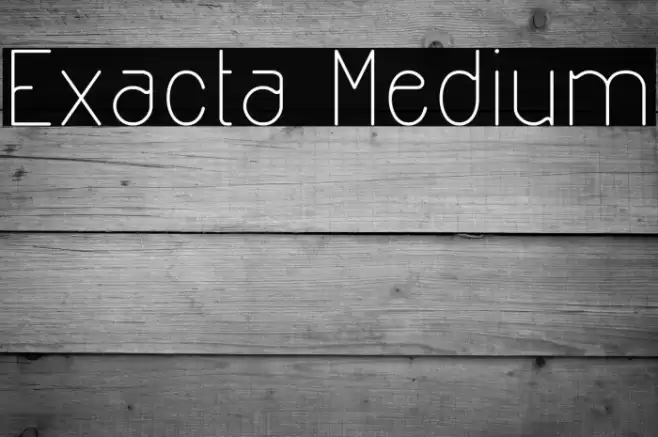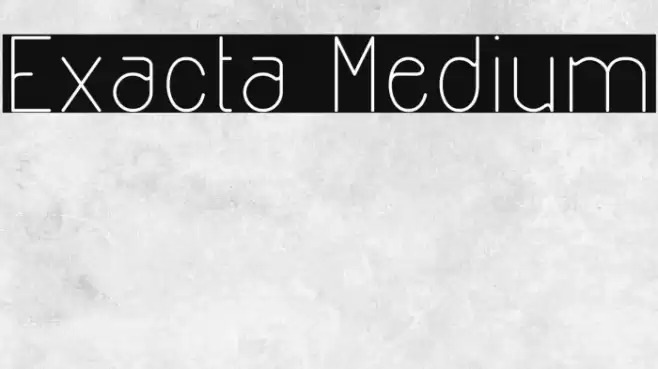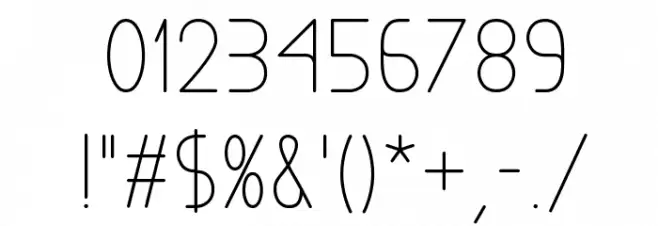
Exacta Medium Font
Exacta Medium Description
This font features a clean and modern sans-serif style with a geometric structure. The characters are evenly spaced with a consistent stroke width, giving it a balanced and harmonious appearance. The uppercase letters are tall and slightly narrow, while the lowercase letters maintain a uniform height, contributing to its readability. The numerals are clear and distinct, matching the overall aesthetic of the font. Special characters are designed with simplicity, ensuring they blend seamlessly with the rest of the character set. This font's minimalist design makes it versatile for various applications.
A clean, geometric sans-serif font with consistent stroke width and balanced spacing from Uncategorized fonts.